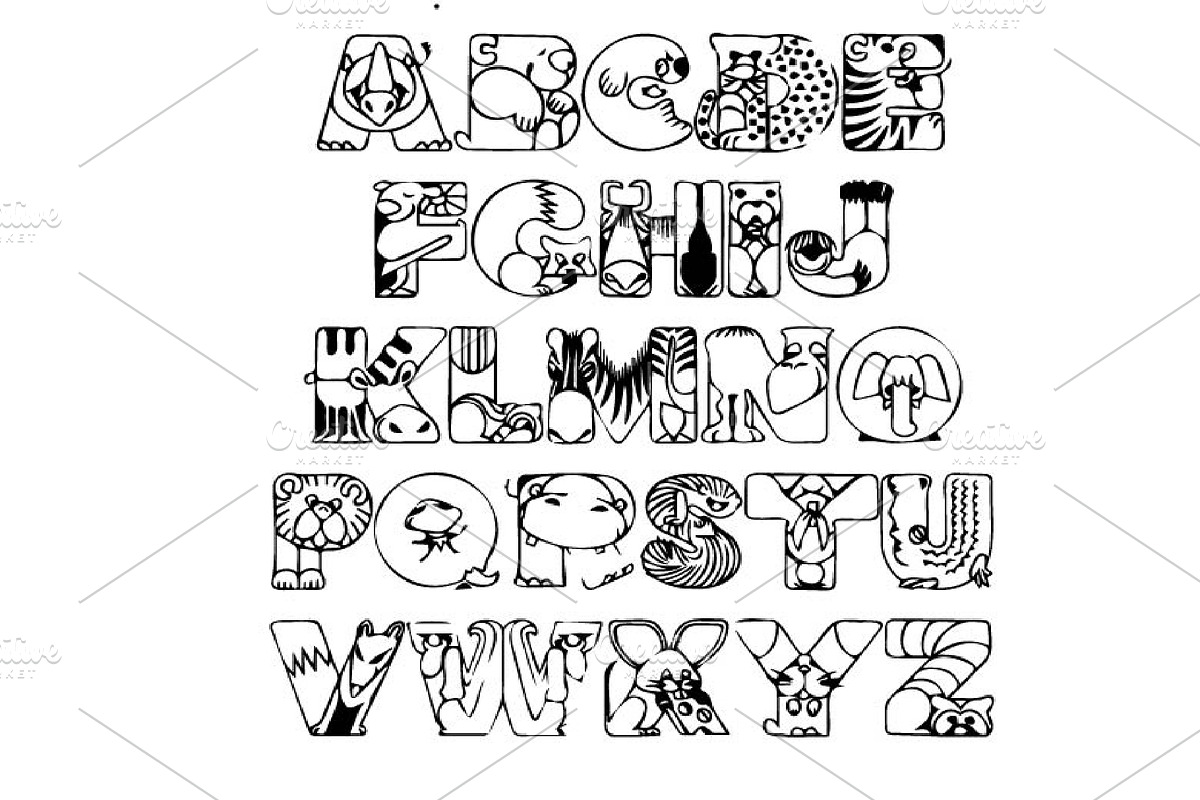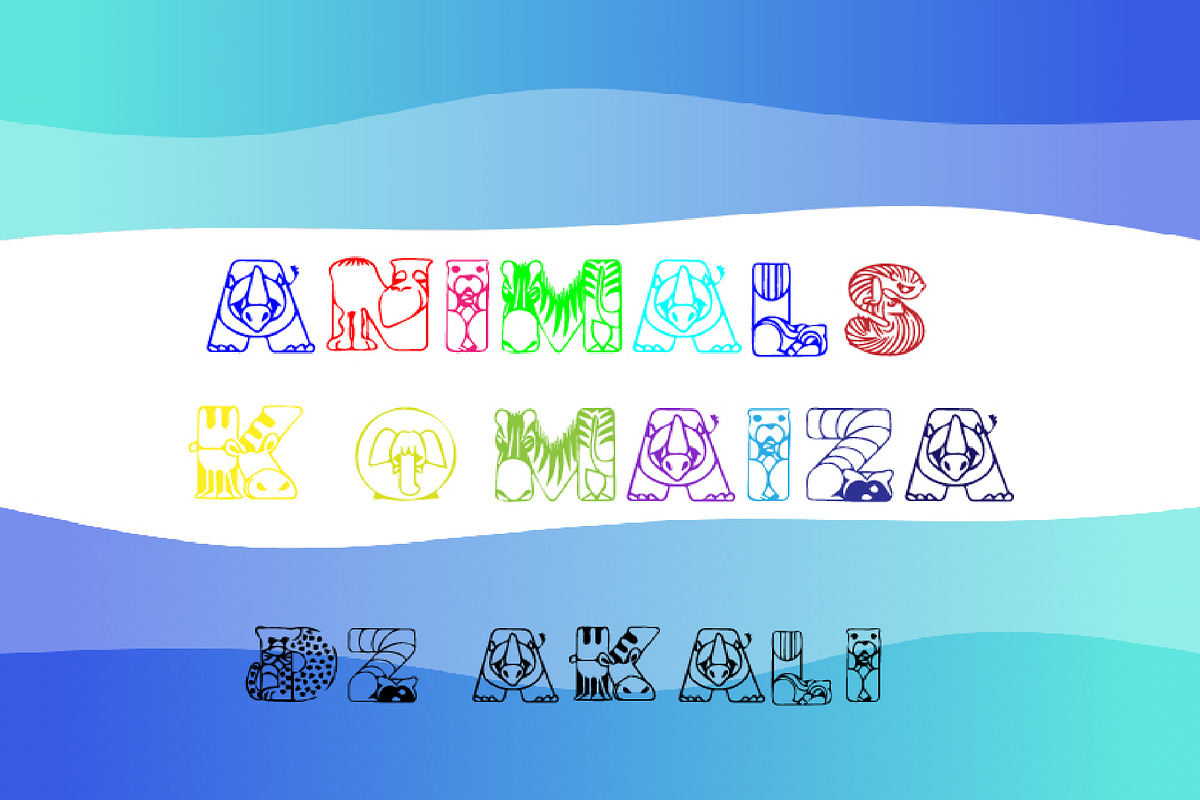
Animals
Animals Komaiza is a chic and friendly outlined decorative font. Whether you use it for cartoon related designs, children games or just any creation that requires a lovely touch, this font will be an amazing choice.